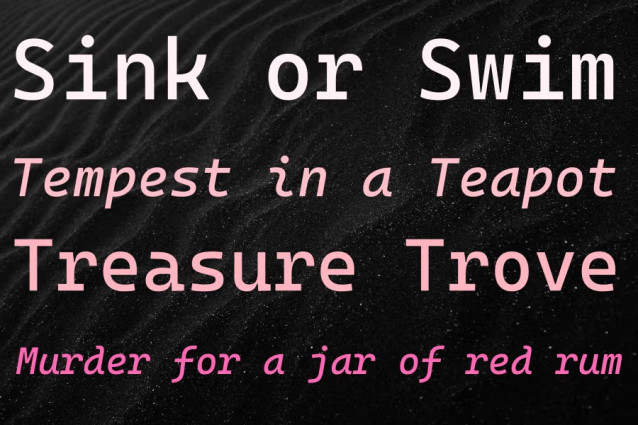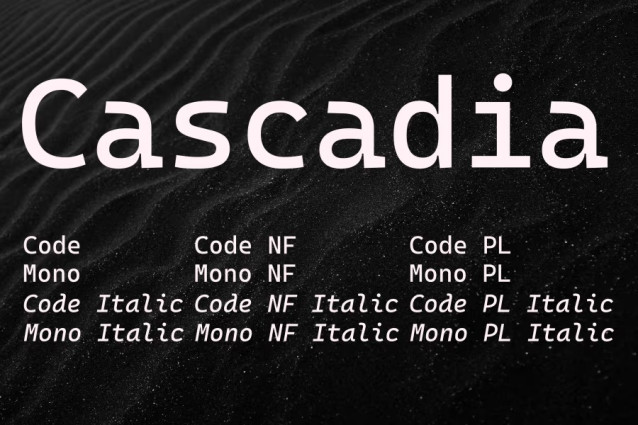
Cascadia Font Family
Cascadia Font Family is a purpose-built monospaced sans serif typeface that brings a fresh, modern approach to coding and terminal applications. Developed by Microsoft specifically for Windows Terminal and now serving as the default font in Visual Studio, this contemporary coding font strikes an ideal balance between functionality and visual appeal with its clean, approachable letterforms.
The typeface’s defining characteristic is its sophisticated programming ligature system, featuring 104 ligatures that transform common character combinations like “<=" into "≤" and create seamless arrows from multiple equals signs. Cascadia Code offers multiple stylistic variants, including a standard italic and an elegant cursive italic accessible through OpenType features, giving developers flexibility in their coding environment aesthetics. The font family spans a variable weight range from extra-light (200) to bold (700), with comprehensive language support including Hebrew, Arabic, Cyrillic, and Greek scripts.
Cascadia Code excels in terminal applications, command-line interfaces, code editors like Visual Studio and VS Code, and any development environment where readability and code clarity are paramount. Its thoughtful ligature system and consistent monospaced rhythm make complex code structures more visually digestible, while the font’s modern personality keeps long coding sessions engaging. Available in several variants including Cascadia Mono (without ligatures) and versions with embedded Powerline and Nerd Font symbols, this open-source typeface represents Microsoft’s commitment to enhancing the developer experience through thoughtful typography.